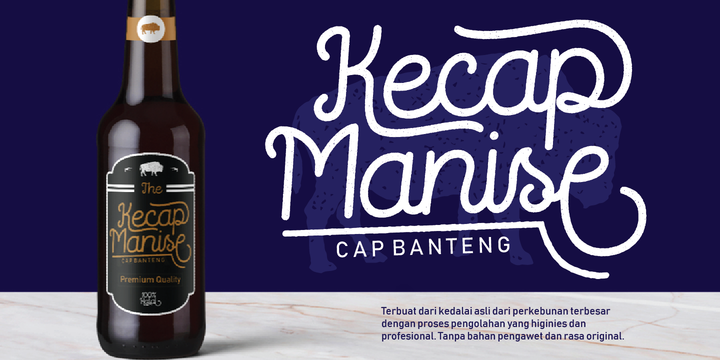
Routerline Rough Typeface
Hello friend. Introducing RouterlineRough Font. Routerline Rough is a script monoline with 4 styles, nice applied in various products. Complete with multilingual characters, ligature and alternate. It is suitable for quote, clothing design, vintage logo, label, poster, packaging design and other designs.